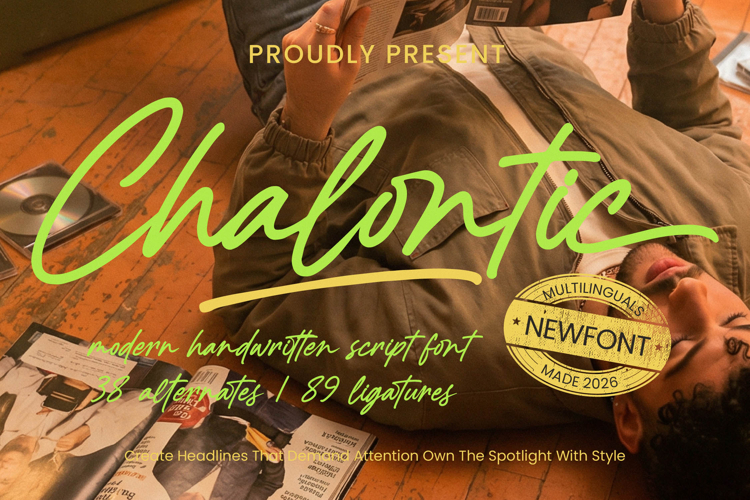
Chalontic - Modern Handwritten Script Font
Unlock limitless creative possibilities with remarkable typographic features. Chalontic - Modern Handwritten Script Font comes fully equipped with 38 alternates and an impressive 89 ligatures, offering unparalleled versatility. These extensive stylistic sets allow designers to customize text, ensuring a truly unique and natural handwritten appearance. Achieve seamless flow, giving every design a distinctive, handcrafted feel.
Expand your creative horizons and connect with a global audience effortlessly. With its extensive multilingual support, Chalontic - Modern Handwritten Script Font adapts seamlessly across global markets, making it incredibly versatile for international projects. This robust capability ensures your brand maintains its unique voice and aesthetic integrity, broadening your reach and impact.
Ideal for establishing a compelling visual identity, Chalontic - Modern Handwritten Script Font excels in luxury branding, elegant packaging design, engaging editorial layouts, and impactful social media. Its bold yet graceful character is exceptional for fashion editorials, product labels, expressive invitations, and bespoke apparel. Infuse your projects with an unmistakable touch of modern elegance and genuine personality.